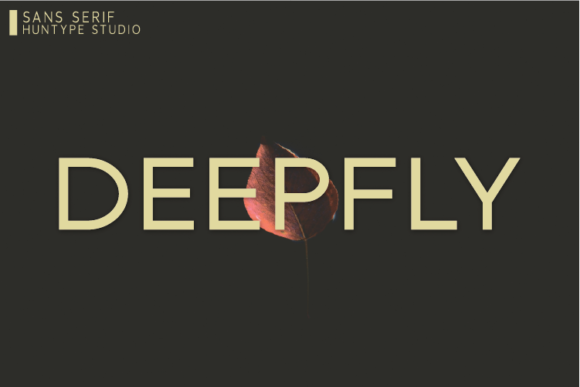
Introducing Deepfly Font: The Ultimate Sans Serif for Modern Designs
In the world of typography, fonts play a crucial role in making or breaking a design. A well-chosen font can elevate your project and make it stand out, while a poorly chosen one can detract from the overall aesthetic. If you’re on the hunt for a stylish and simple sans serif font that can add a touch of elegance to your designs, look no further than Deepfly Font.
What is Deepfly Font?
Deepfly is a stylish and simple sans serif font that has gained popularity among designers and typographers. Its clean, thin, and smooth vibe makes it an excellent choice for a wide range of design projects, from branding and advertising to digital media and print materials.
One of the standout features of Deepfly Font is its versatility. Its sleek and modern design makes it perfect for use in both digital and print applications. Whether you’re creating a logo, brochure, or website, Deepfly Font is sure to make a lasting impression.
Key Features of Deepfly Font
- Clean and Simple Design: Deepfly Font boasts a clean and simple design that makes it easy to read and versatile for use in a variety of contexts.
- Thin and Smooth Lines: The font’s thin and smooth lines give it a sleek and modern look that’s perfect for designs that require a touch of elegance.
- Sans Serif: As a sans serif font, Deepfly Font is perfect for designs that require a clean and minimalist look.
- Highly Legible: Deepfly Font is highly legible, even at small sizes, making it perfect for use in body text and captions.
Benefits of Using Deepfly Font
So why should you choose Deepfly Font for your next design project? Here are just a few benefits of using this stylish and simple sans serif font:
- Enhances Readability: Deepfly Font’s clean and simple design makes it easy to read, even for extended periods of time.
- Adds Elegance to Your Design: The font’s thin and smooth lines add a touch of elegance to any design, making it perfect for projects that require a sophisticated look.
- Versatile: Deepfly Font is versatile and can be used in a wide range of design projects, from branding and advertising to digital media and print materials.
- Unique and Memorable: Deepfly Font’s unique design makes it stand out from other sans serif fonts, ensuring that your design will be memorable and leave a lasting impression.
How to Use Deepfly Font
Using Deepfly Font in your design projects is easy. Here are a few tips to get you started:
- Pair it with Other Fonts: Deepfly Font pairs well with other fonts, making it easy to create a unique and visually appealing typography combination.
- Use it for Headings and Body Text: Deepfly Font is highly legible, making it perfect for use in both headings and body text.
- Experiment with Different Sizes: Deepfly Font looks great at a variety of sizes, so don’t be afraid to experiment and find the perfect size for your design.
In conclusion, Deepfly Font is a stylish and simple sans serif font that’s perfect for designers who want to add a touch of elegance to their designs. Its clean, thin, and smooth vibe makes it an excellent choice for a wide range of design projects, from branding and advertising to digital media and print materials. With its versatility, readability, and unique design, Deepfly Font is sure to become a go-to font in your typography arsenal.
- What is Deepfly Font?: Deepfly Font is a stylish and simple sans serif font with a clean, thin, and smooth vibe.